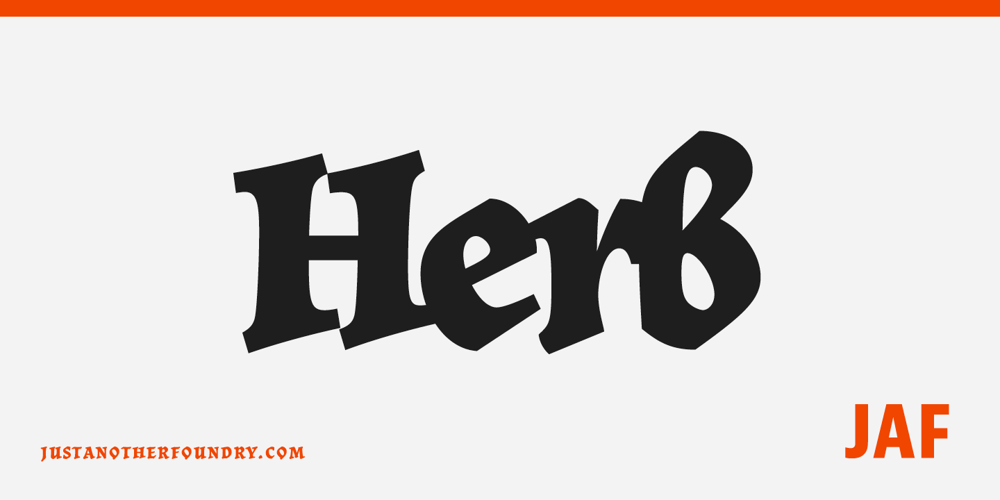
JAF Herb
JAF Herb font
JAF Herb Font Family was designed by Tim Ahrens and published by Just Another Foundry. JAF Herb contains 4 styles and family package options. Herb is based on 16th century cursive broken scripts and printing types. Originally designed by Tim Ahrens in the MA Typeface Design course at the University of Reading, it was further refined and extended in 2010. The idea for Herb was to develop a typeface that has the positive properties of blackletter but does not evoke the same negative connotations – a type that has the complex, humane character of fraktur without looking conservative, aggressive or intolerant.